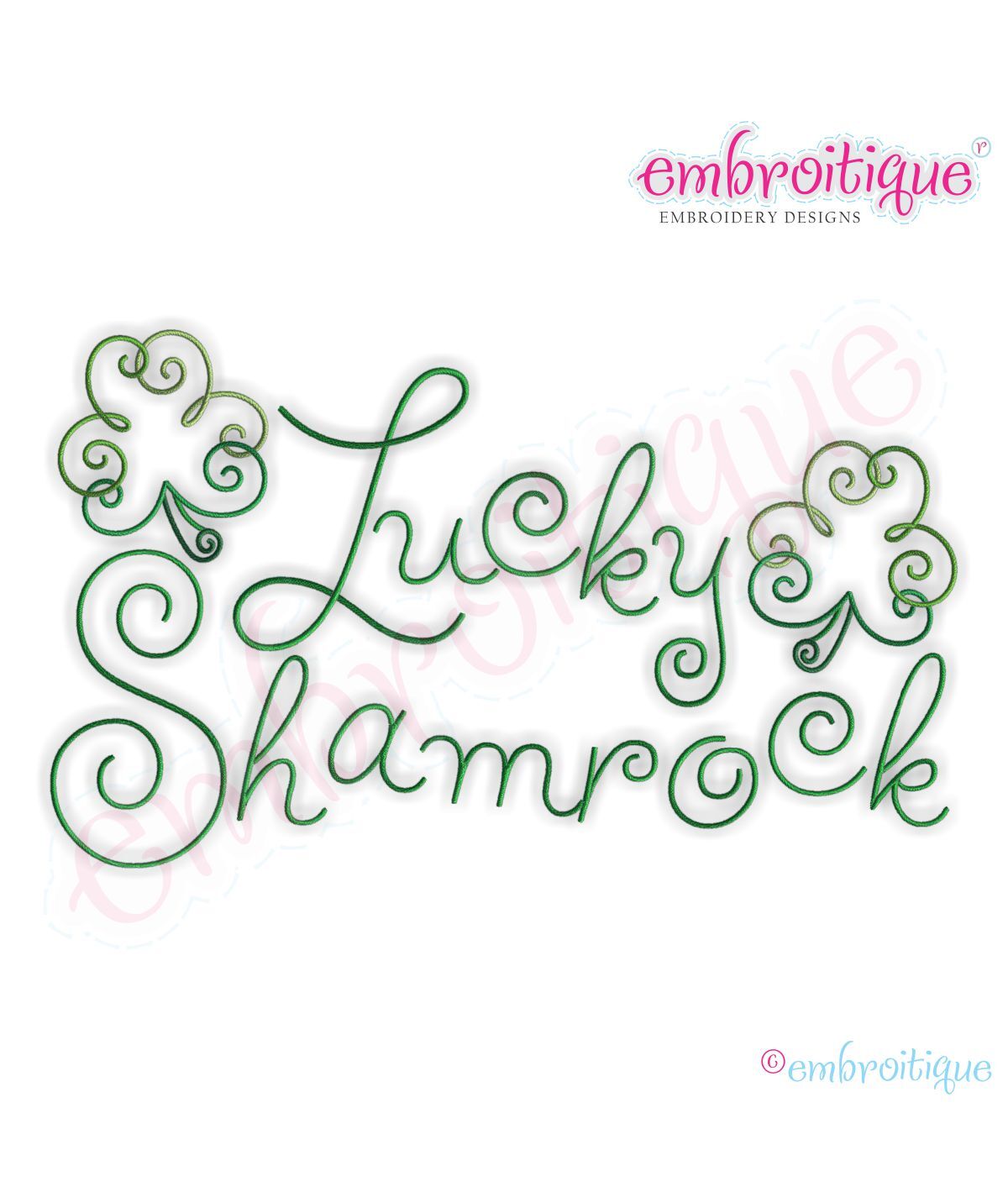
Lucky Shamrock Monogram Font Set - Small
This is such a fun and simple satin-stitch set! Â Pairs perfectly with any of our St Patrick's Day designs! Â Great for everyday too! Â Pictured with our Curly Clover Shamrock - sold separately.